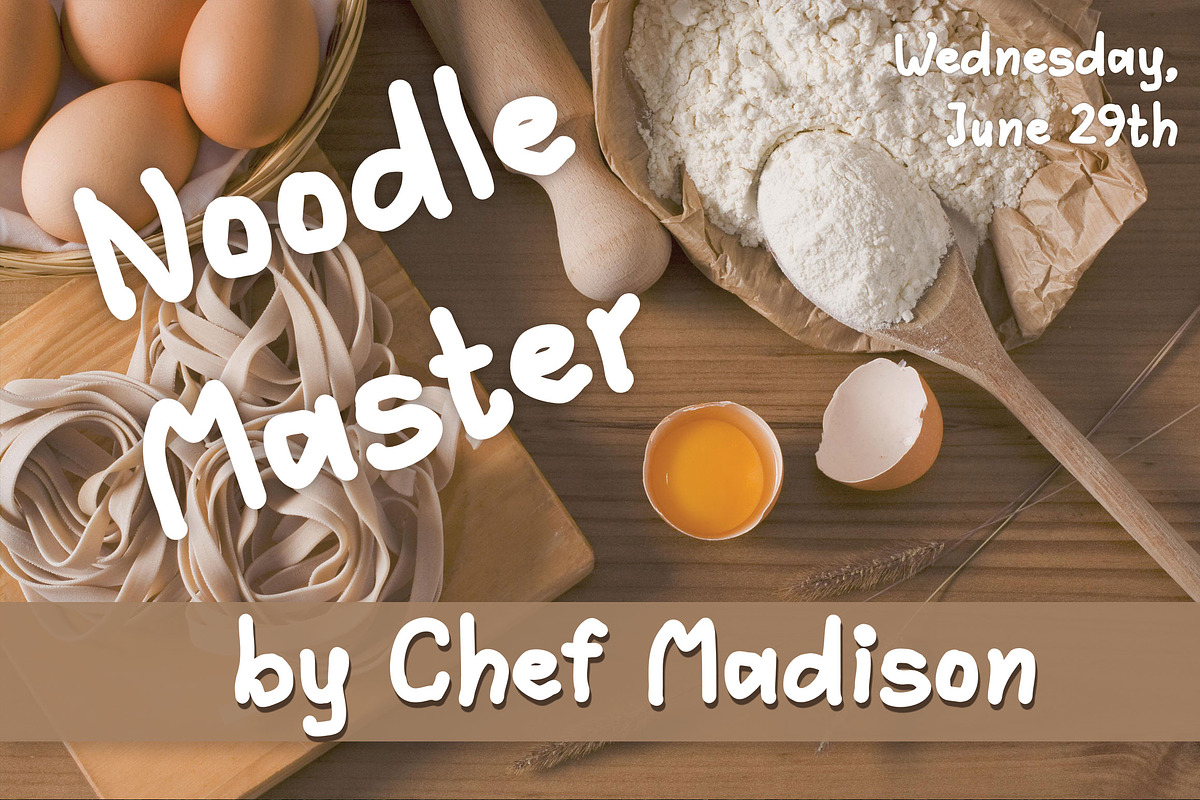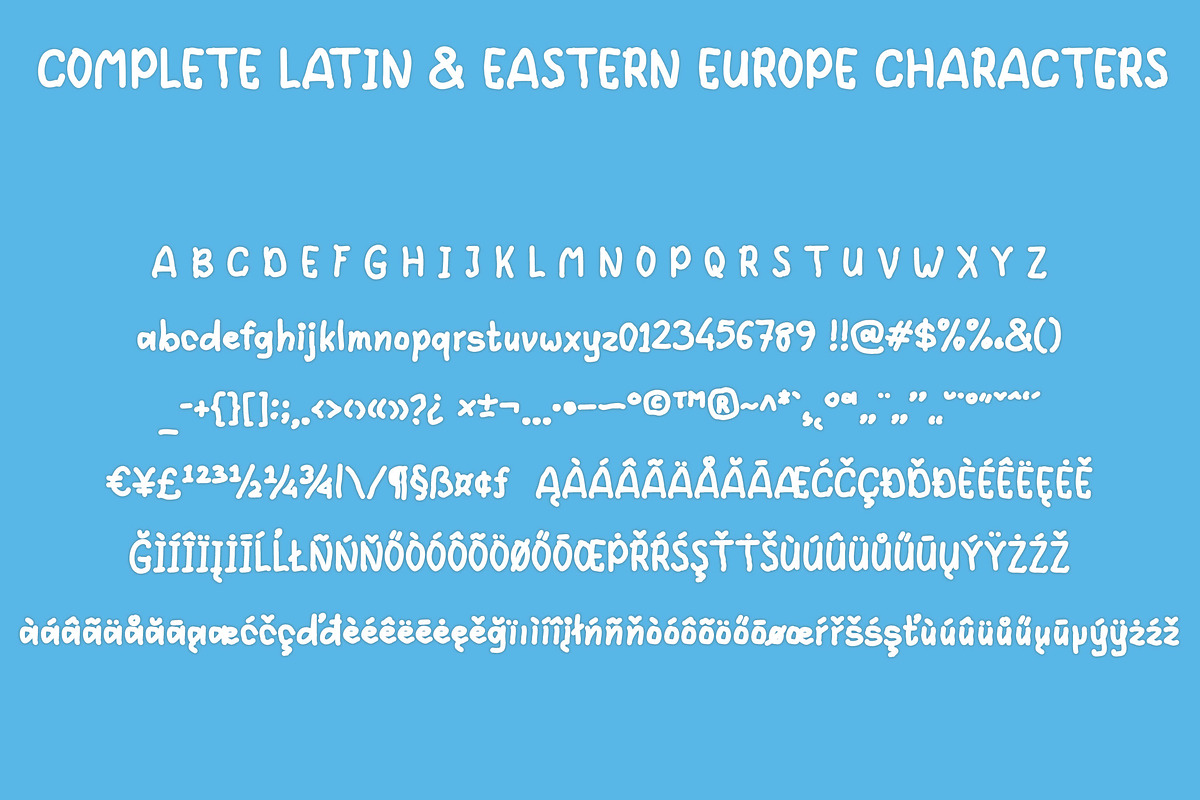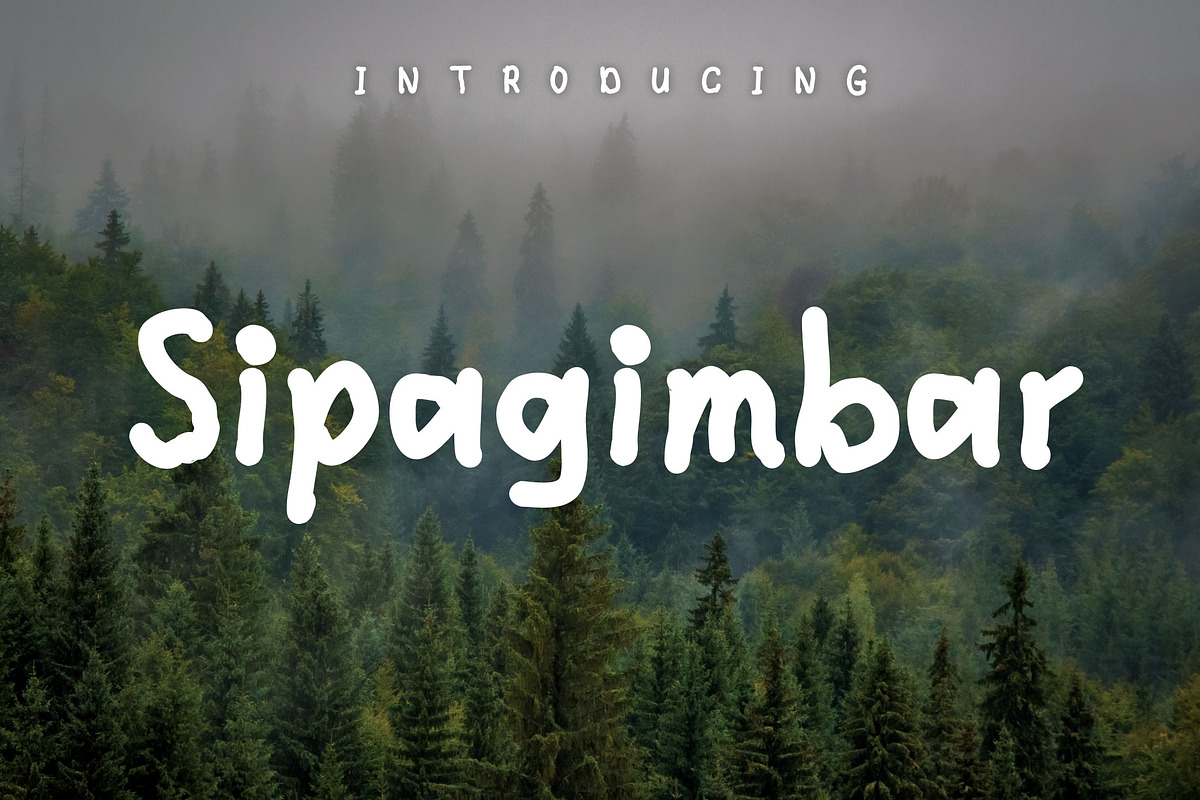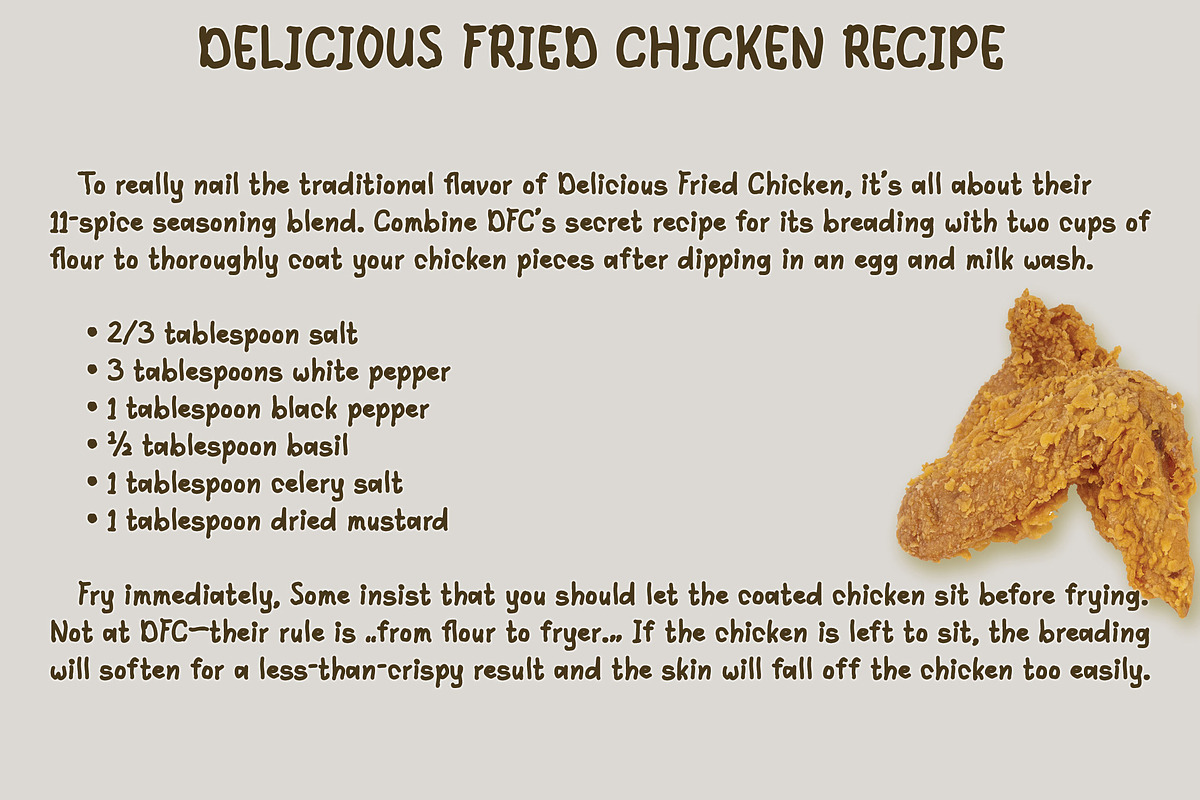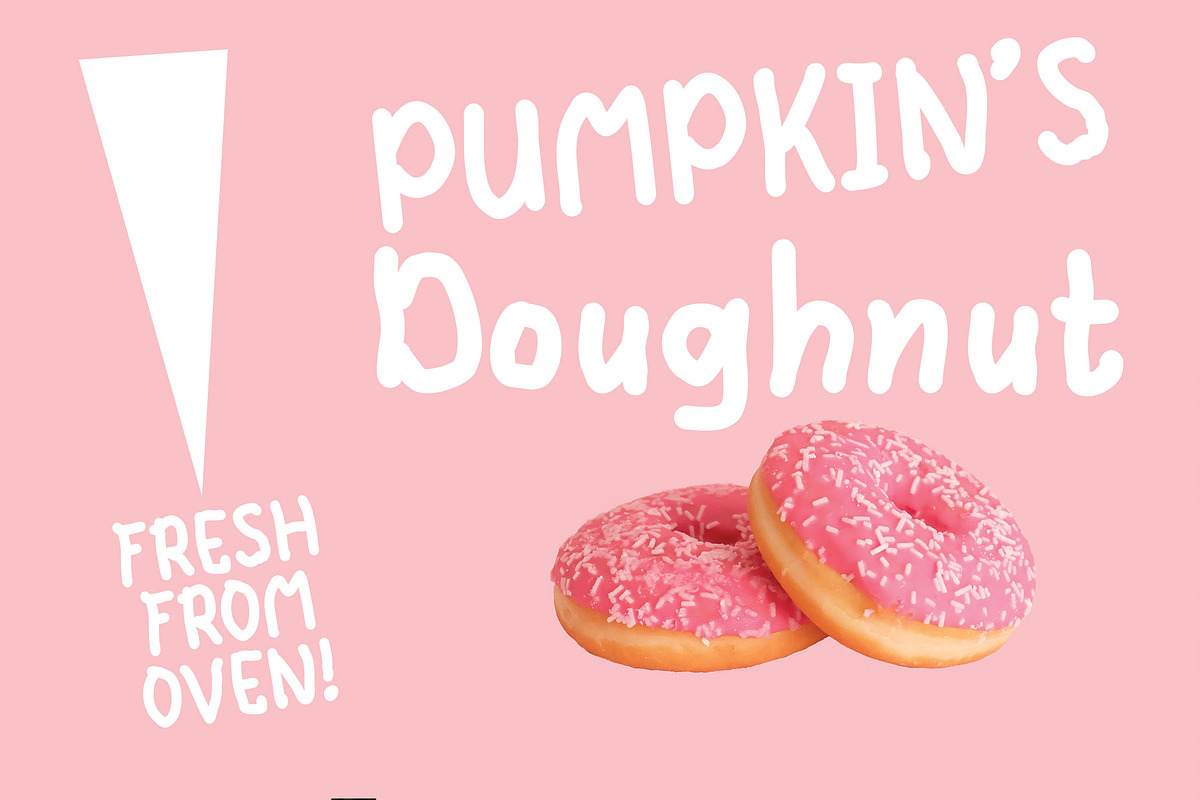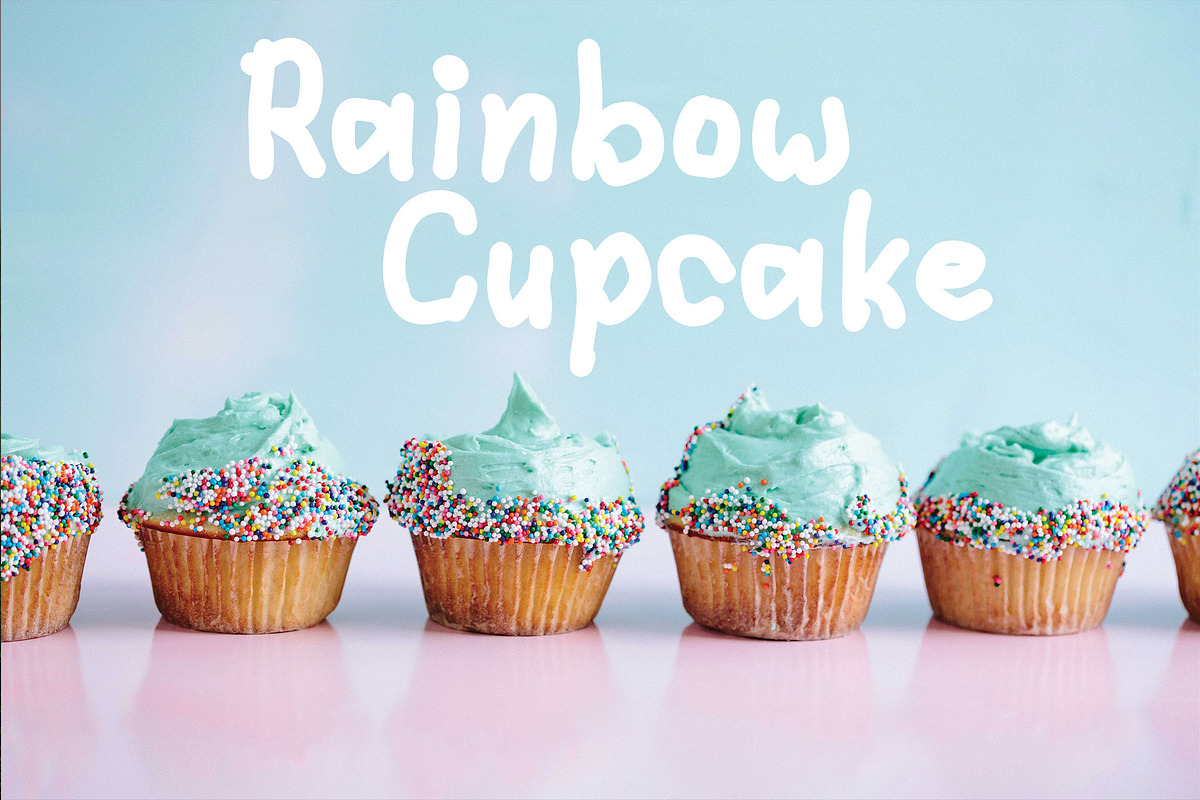
Sipagimbar | Handwritten Font
Introducing a new cute bold handwritten font named as Sipagimbar. All node was cleaned in fairly natural shape. This font will nice for logo, title, subtitle, T-shirt, Mug, etc.
- Have 290 glyphs, supported to all Latin and Eastern Europe characters.
- All node was cleaned in fairly natural shape.
- Less stress with no alternate characters, standard letter already cute and fun.